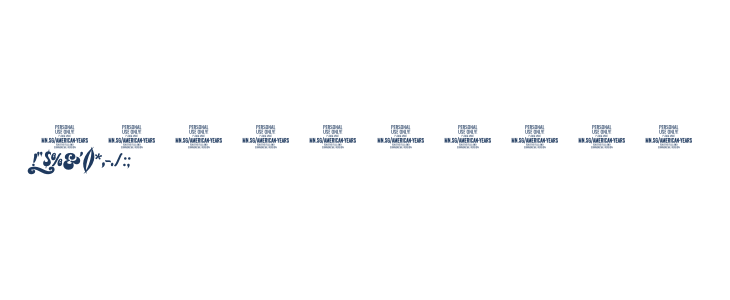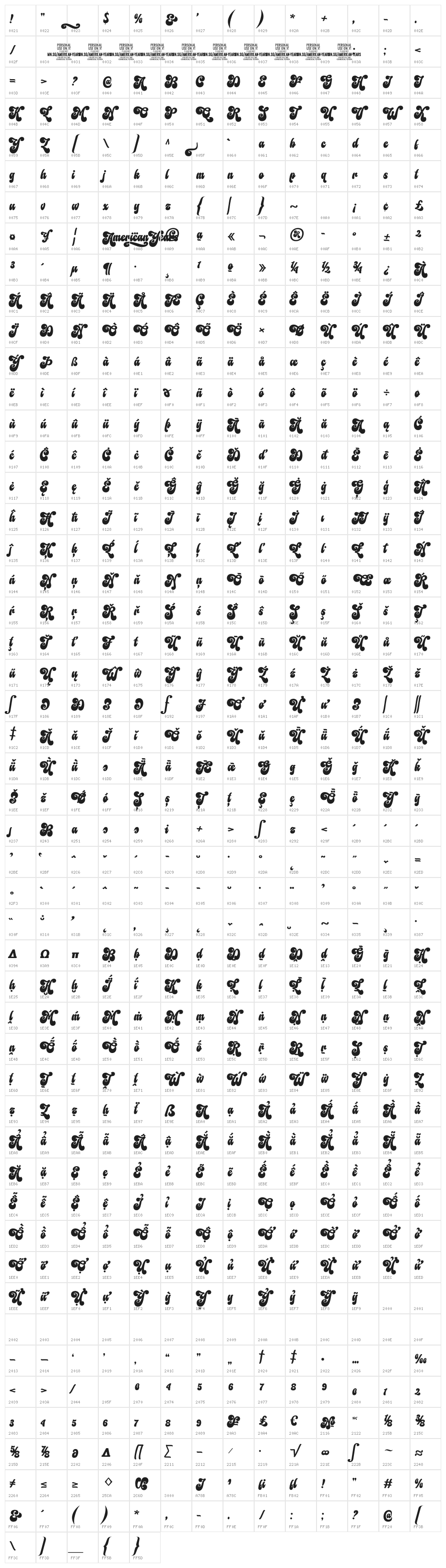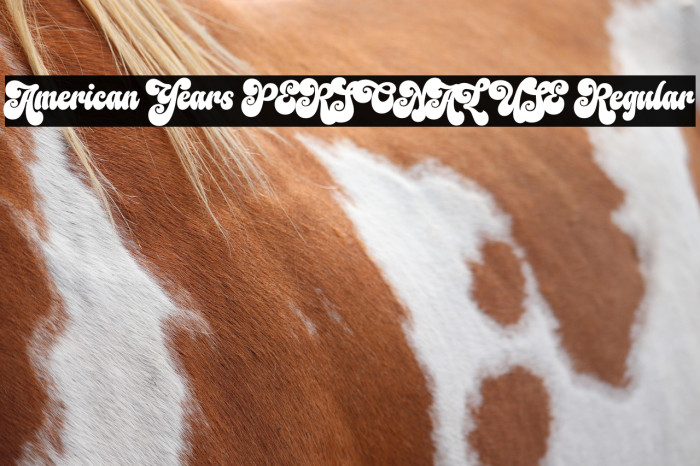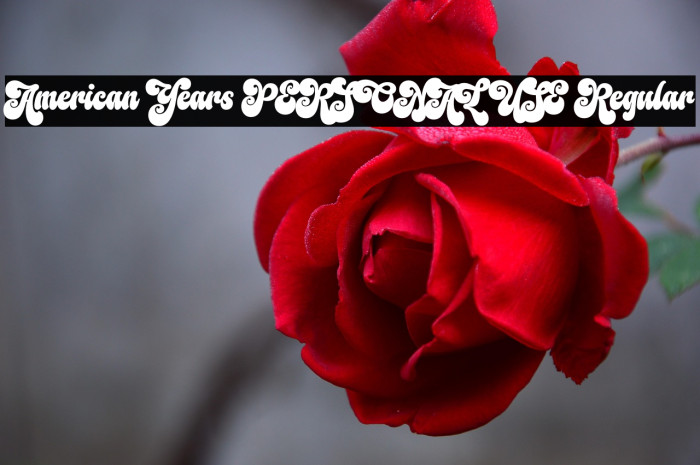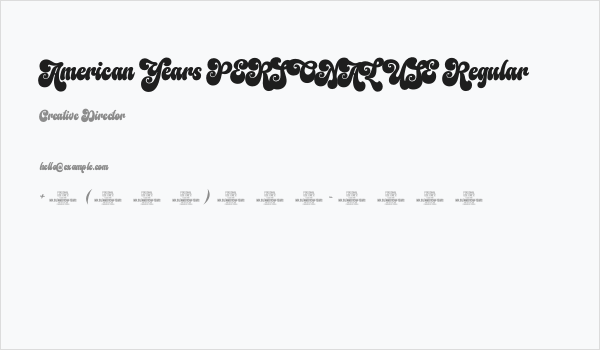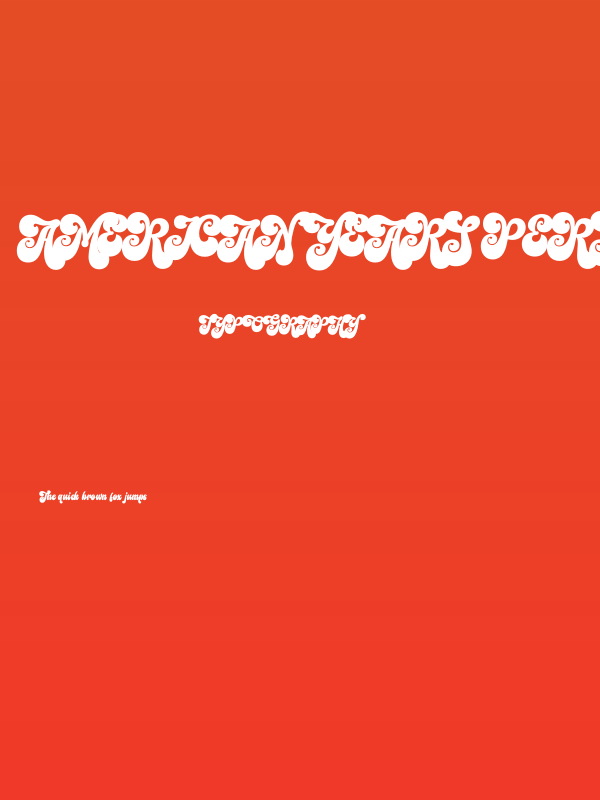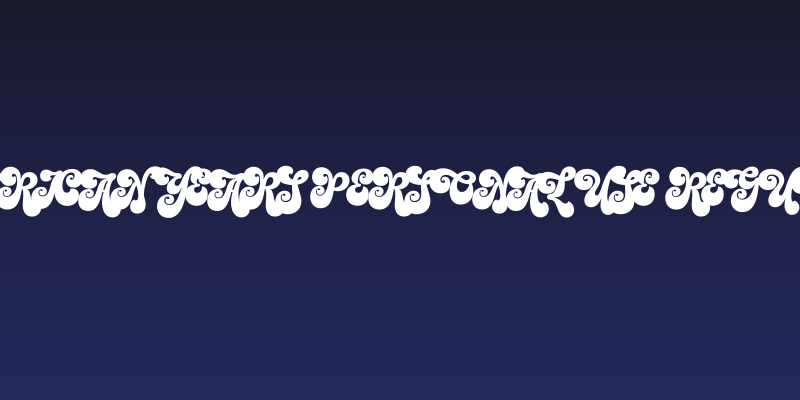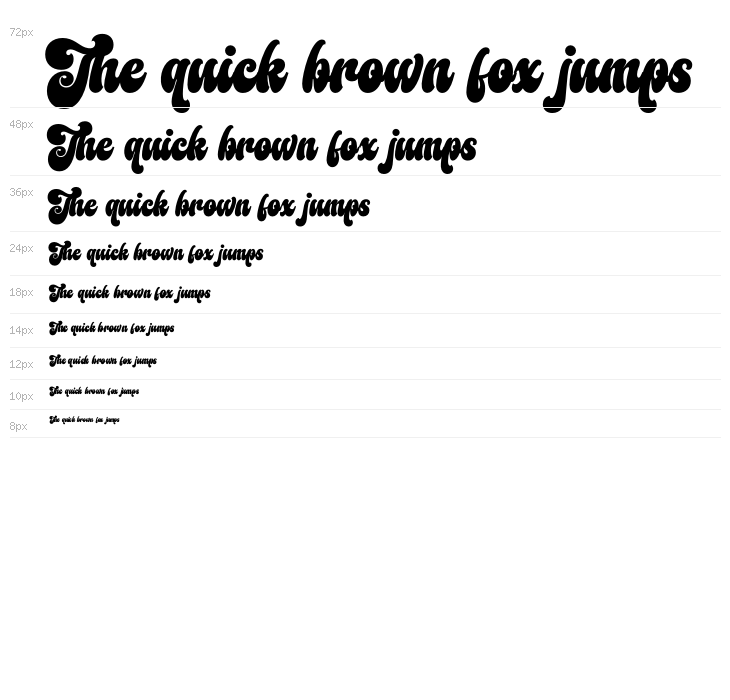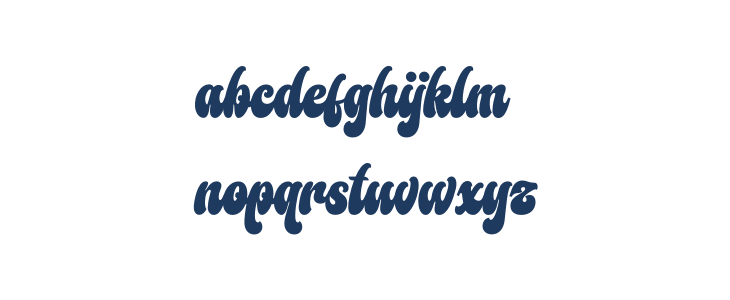
American Years PERSONAL USE Regular Font
American Years PERSONAL USE Regular Description
This font features a bold and decorative style with a playful, swirling design. The characters are heavily stylized with thick strokes and intricate curls, giving it a whimsical and artistic appearance. The uppercase letters are particularly ornate, with each character exhibiting unique flourishes and loops. The lowercase letters maintain a consistent style, complementing the uppercase with their own set of curves and embellishments. The numbers and special characters follow the same decorative theme, ensuring a cohesive look across all glyphs. This font's distinctiveness makes it stand out, ideal for creative and eye-catching designs.